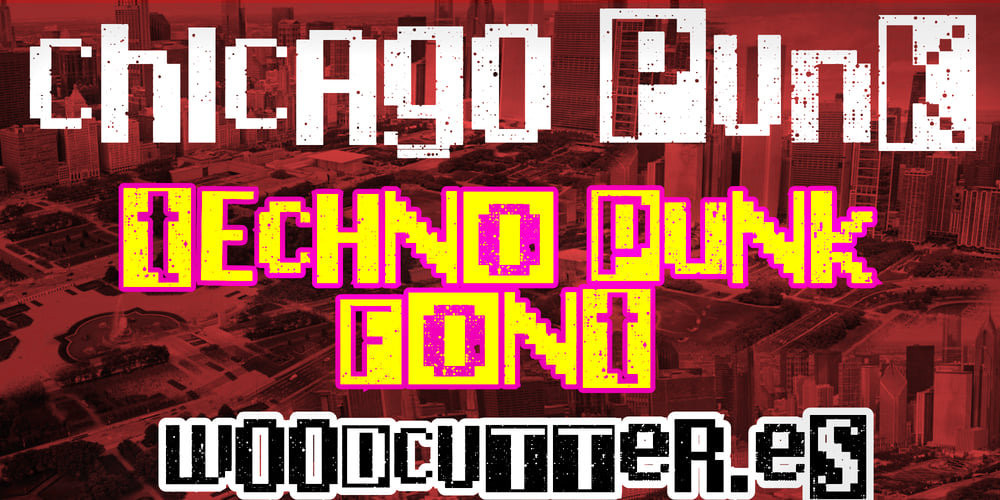
Chicago Punk Font Family was designed by Jordi Manero and published by Woodcutter. Chicago Punk contains 1 styles and family package options. “Chicago Punk” is a distorted typeface that blends punk aesthetics with the iconic Chicago font. Inspired by the punk movement, this font features irregular and disordered letters, capturing the rebellious and provocative essence of the era. Perfect for projects aiming to stand out with a bold and countercultural style, “Chicago Punk” is ideal for posters, logos, and editorial design. This typeface evokes the spirit of the streets and punk fanzines, offering a touch of authenticity and energy to any design.